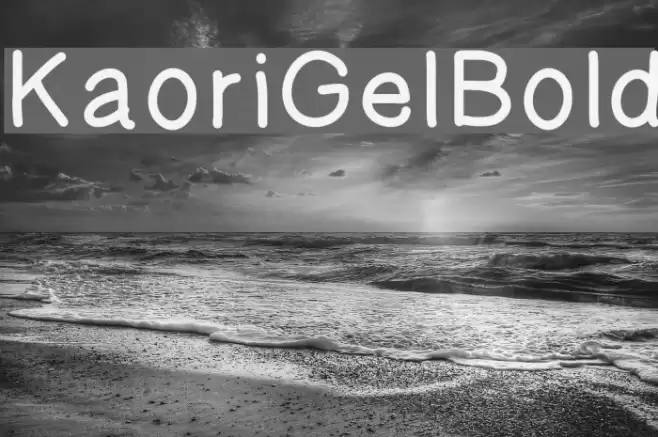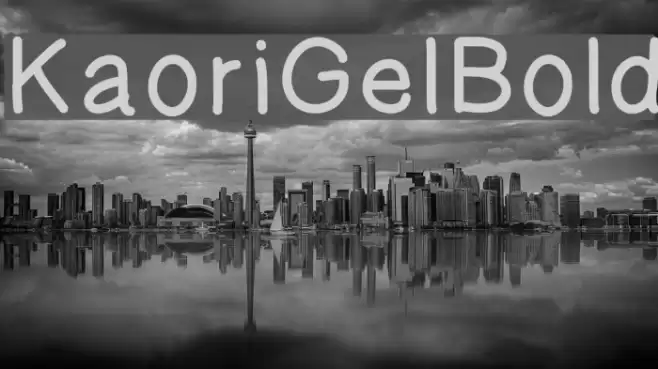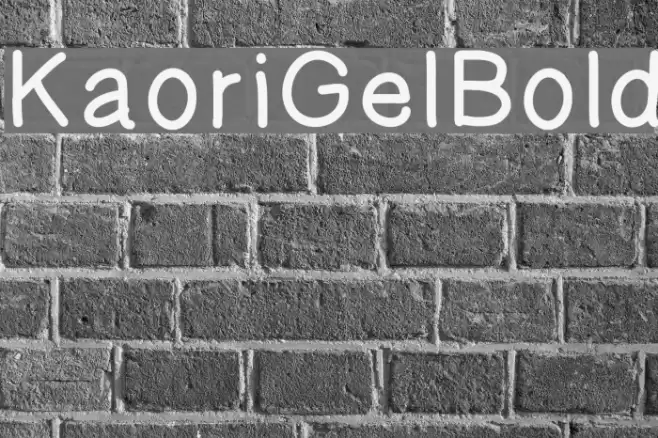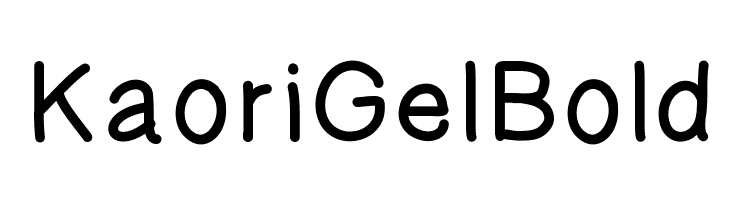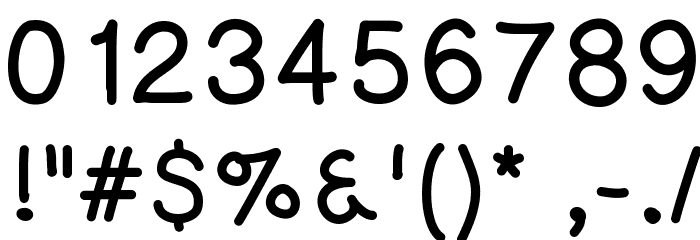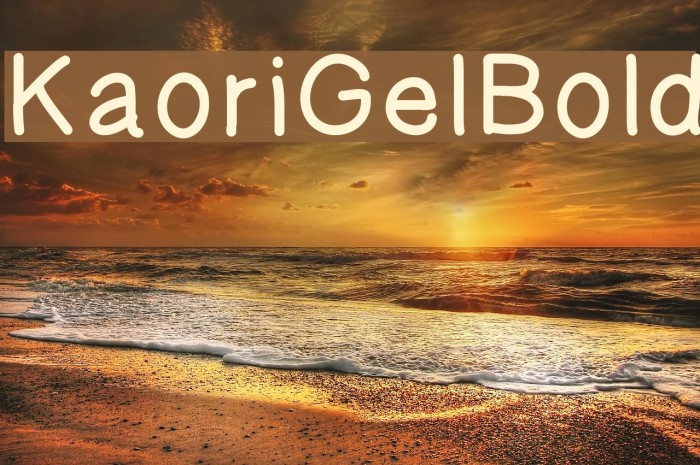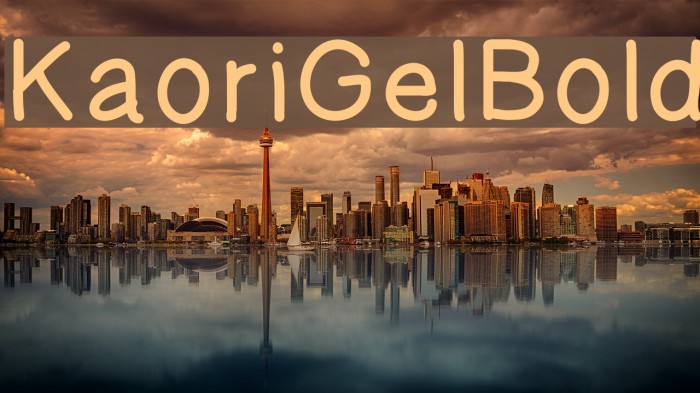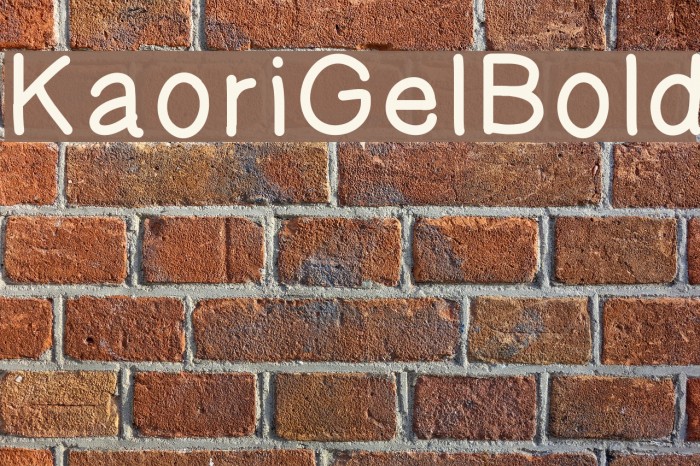
KaoriGelBold Font
KaoriGelBold Description
This font features a playful and rounded style, characterized by its smooth curves and consistent stroke width. The letters are evenly spaced, providing a clean and approachable appearance. The uppercase and lowercase letters maintain a uniform height, contributing to its balanced look. The numerals and special characters follow the same design principles, ensuring a cohesive visual experience. Its simplicity and clarity make it suitable for a variety of applications, from children's books to casual branding projects.
A playful, rounded font with smooth curves and consistent stroke width from Handwritten fonts.
- Proposed Projects: Ideal for children's books, casual branding, playful posters, and friendly web design.
- Overall Style: Playful